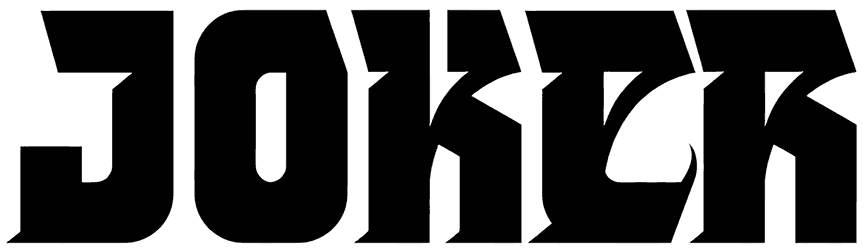
MCF Joker Font
Designed byMister Chek
Ready for an all-caps font? Well then, here you go! MCF Joker is a bold font with big letters and cuts on its edges. This casino font brings an exciting and intense vibe to you. You can use it to write futuristic movie posters, shop signs, board designs, and comic books, and have a powerful presentation preferred by millennials.